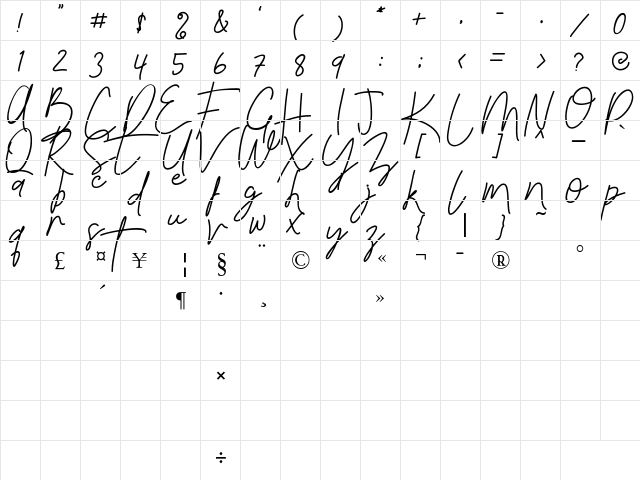
Reilly Beck Regular
Design Context for Reilly Beck Typeface
Reilly Beck is a composed and adaptable typeface that performs quietly and consistently across a wide range of design contexts.